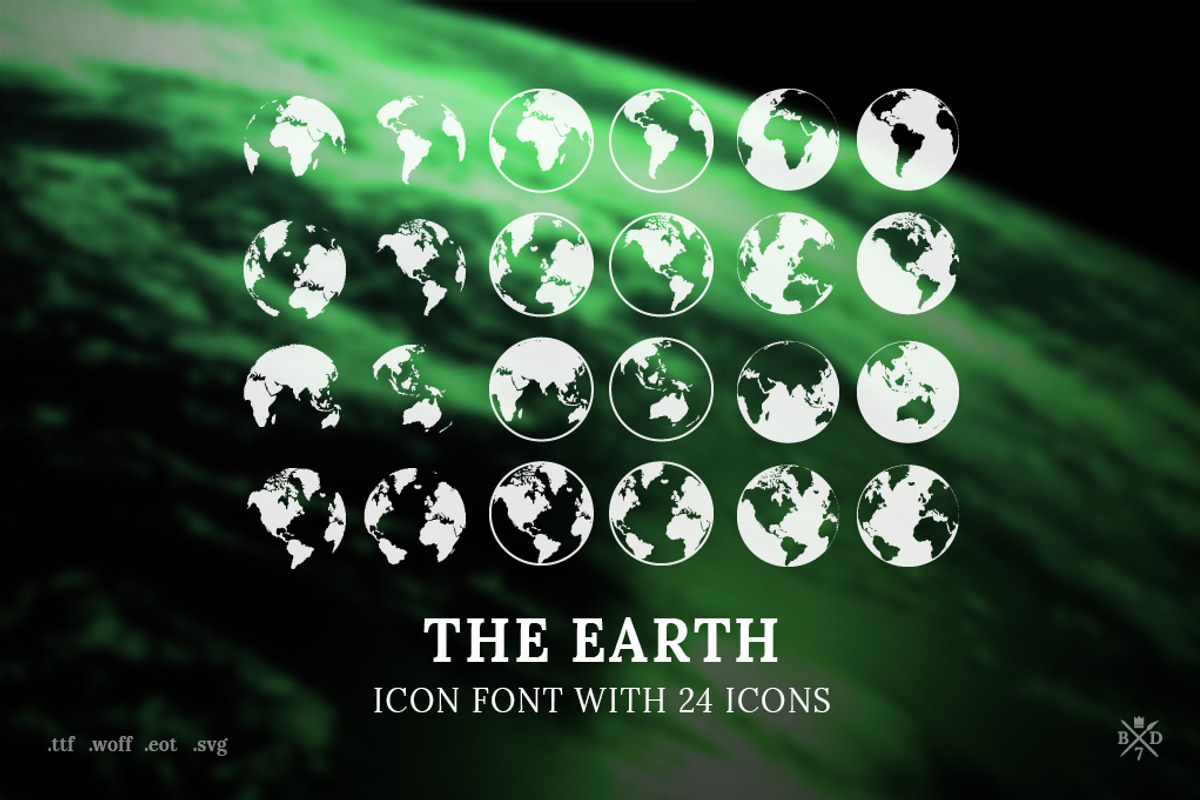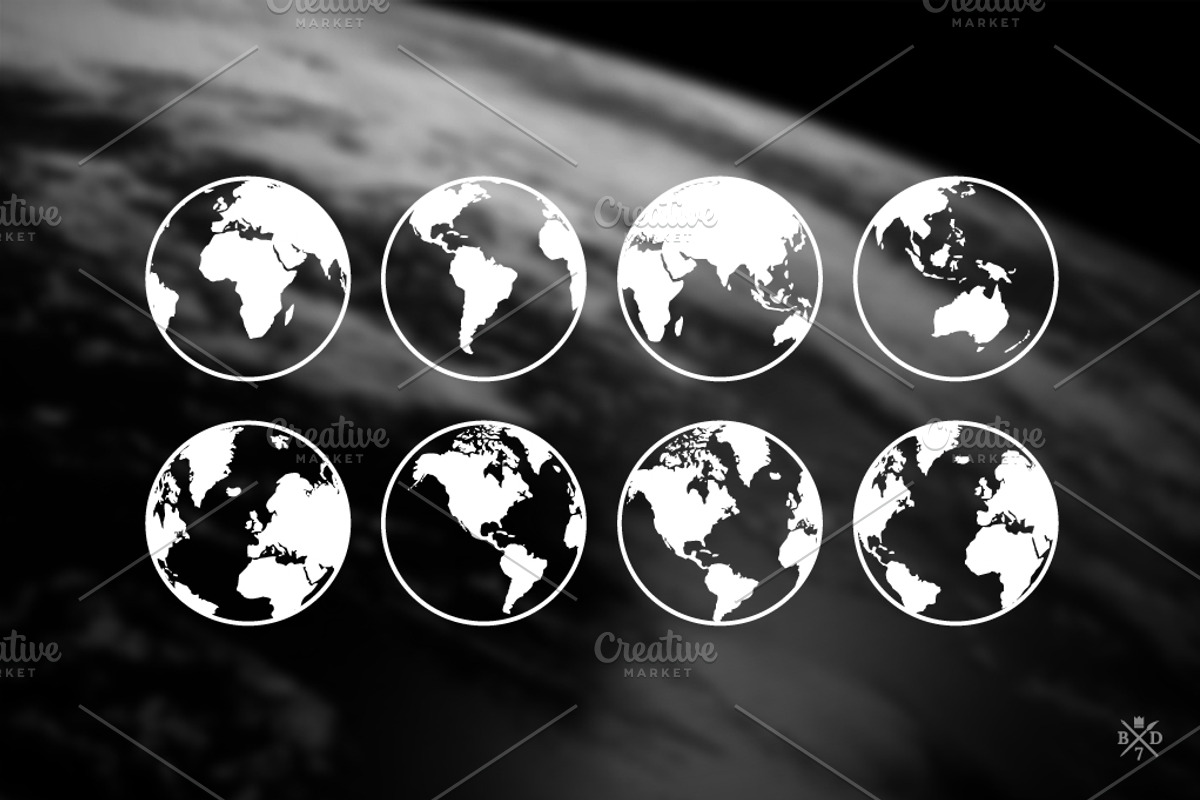
The Earth - Icon font with 24 icons
The Earth - Icon font with 24 icons by Basari Design is a font selected for branding, posters, packaging, typography.
Why The Earth - Icon font with 24 icons is worth a look
The Earth - Icon font with 24 icons by Basari Design fits naturally into Branding, posters, packaging, typography.